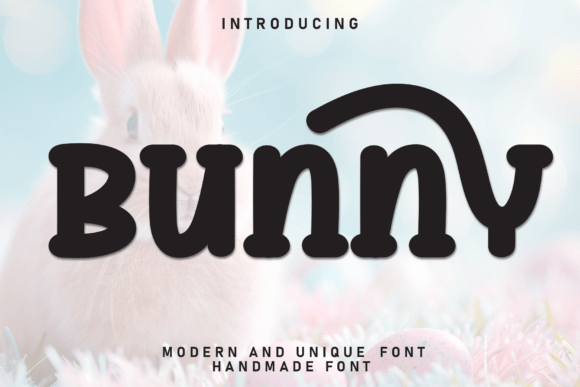
Introducing Bunny Font: The Sweet & Friendly Handwritten Display Font
The Inviting Charm of Bunny Font
The Bunny Font is a Sweet & Friendly Handwritten Display Font that brings an irresistible cuteness and an element of joviality to your designs. Its engaging charm makes it artfully suitable for crafting wedding invitations, heartfelt cards, or injecting a whimsical soundtrack to any design narrative that seeks to entertain and delight. This friendly handwritten font is your secret ingredient to infuse joy in all your visual communication.
Honest Review: What I Love & A Few Quirks
- ✨ The font’s playful and whimsical feel makes it perfect for creative projects.
- ✅ The characters are well-designed, with a clear and readable structure.
- 💕 The font’s friendly and approachable vibe makes it ideal for projects that require a personal touch.
- 🎉 The font comes with a range of OpenType features, glyphs, and stylistic alternates, giving you plenty of creative options.
A Few Quirks:
- 🤔 Some characters may appear a bit narrow or wide, depending on the size and context.
- ⚠️ The font may not be suitable for very formal or professional projects, as it has a distinctly playful tone.
The Designer Inspiration Behind Bunny Font
The Bunny Font was designed with the intention of creating a friendly and approachable handwritten font that would bring joy and playfulness to designs. The designer aimed to craft a font that would be perfect for creative projects, such as wedding invitations, greeting cards, and other visual communications that require a personal touch.